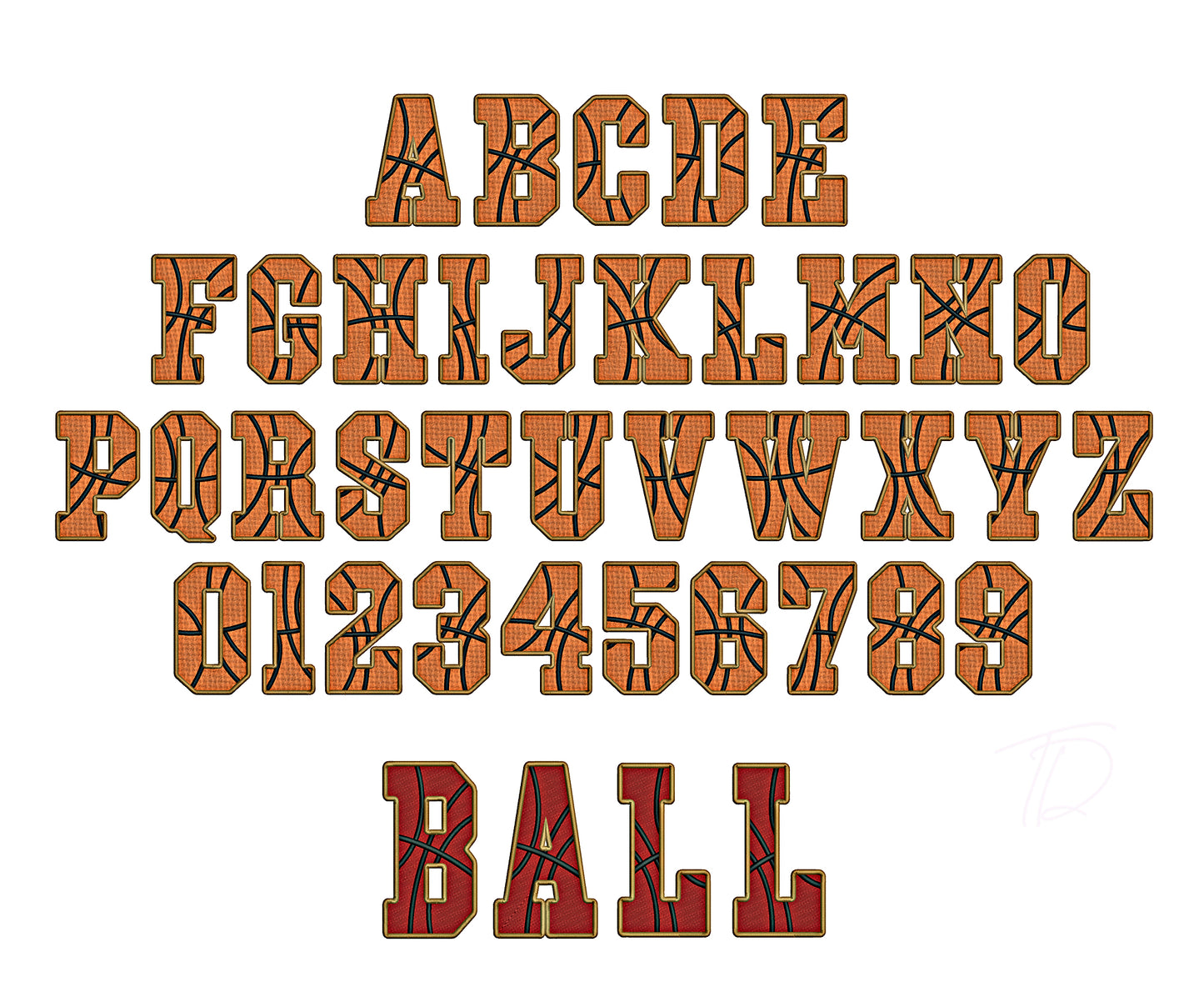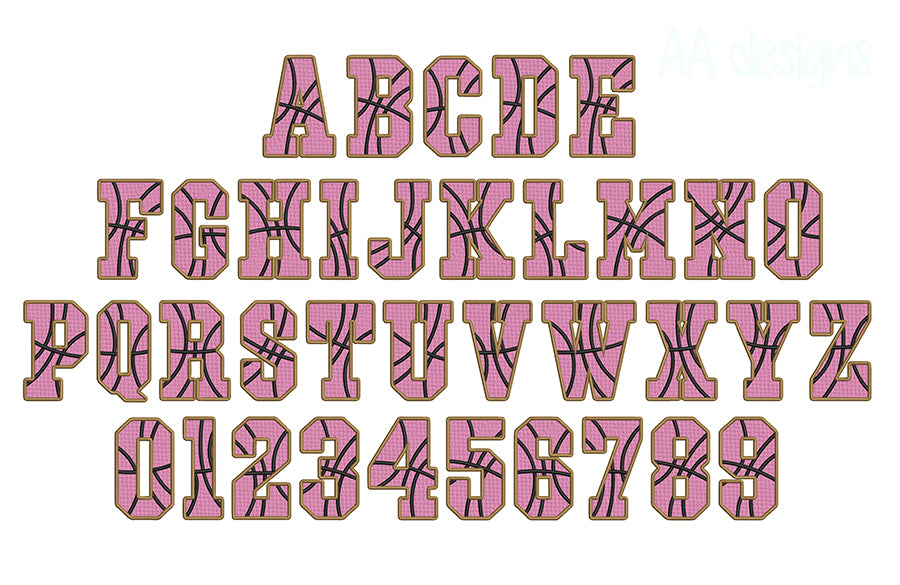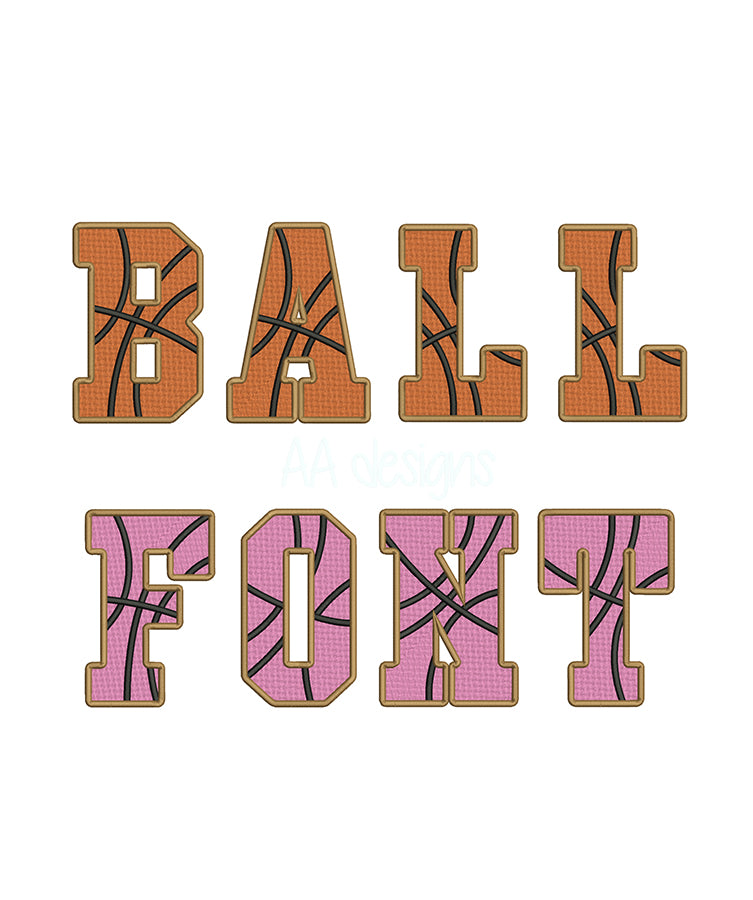
Basketball Embroidery Digital Font
Take your embroidery projects to the next level with our Basketball Embroidery Digital Font — a bold, sporty alphabet designed specifically for machine embroidery enthusiasts, team apparel, and sports gear customization.
- Bold, athletic letterforms inspired by classic basketball jersey lettering
- Optimized stitch paths for clean, professional results on a wide range of fabrics